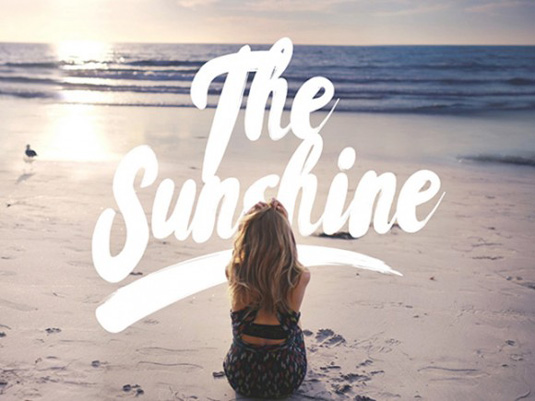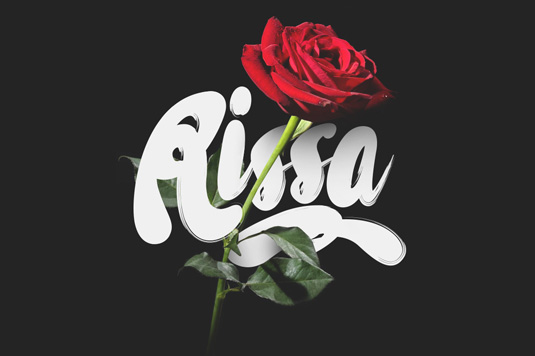
Font of the day: Rissa
Rissa from Maulana Creative
Kicking off our font of the day posts this week is handwritten design Rissa, from the team at Maulana Creative. With an authentic brush, handcrafted feel, Rissa is perfectly suited to stationery, logos and much more.